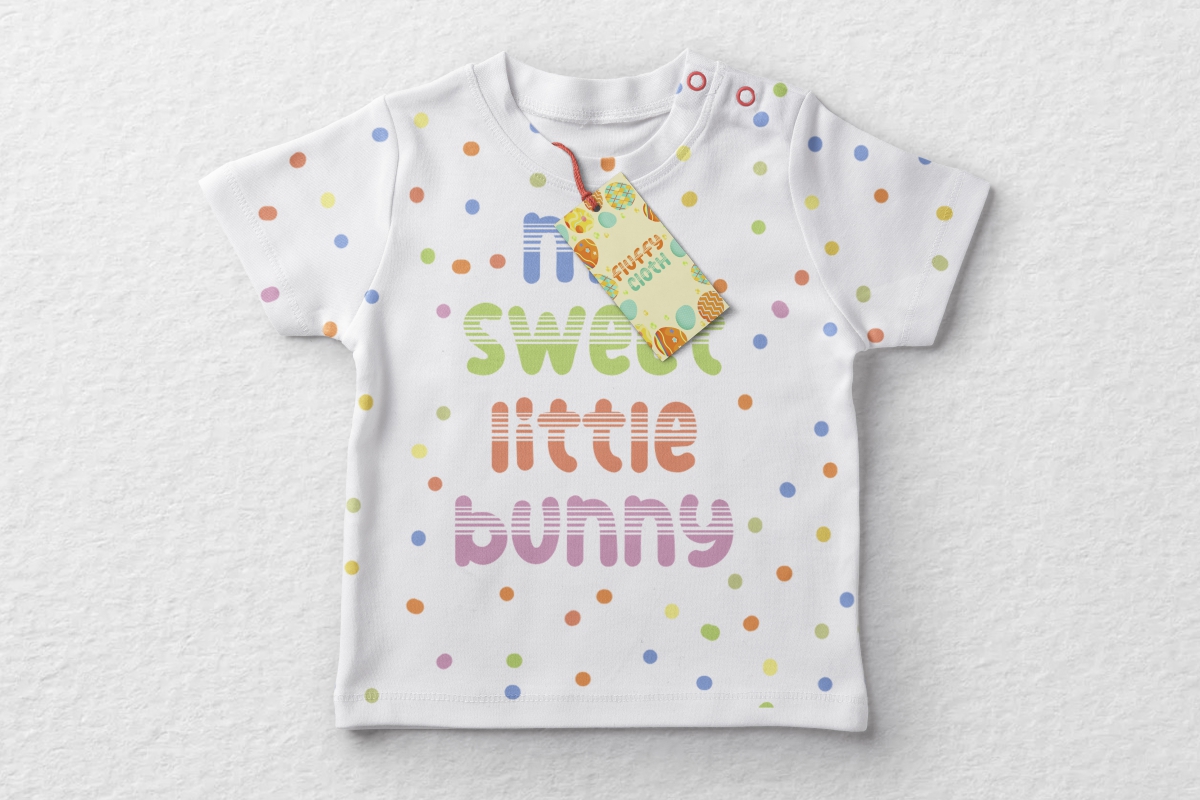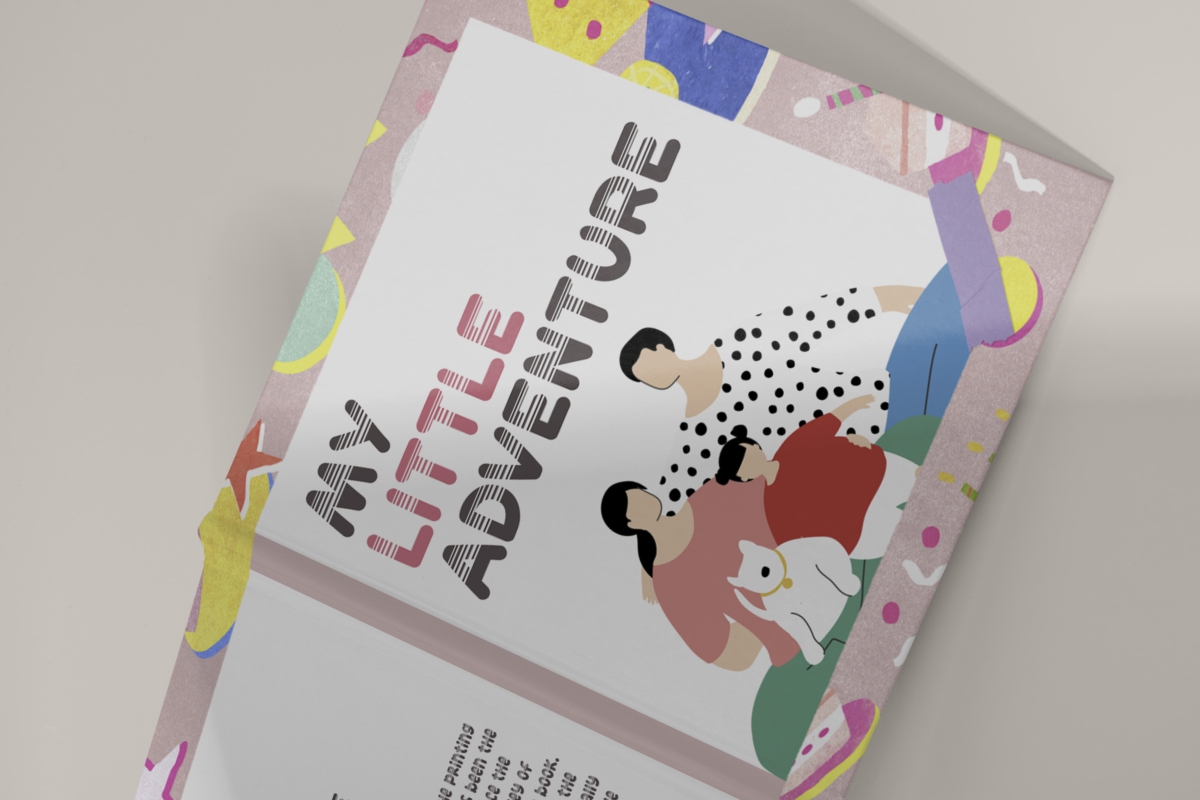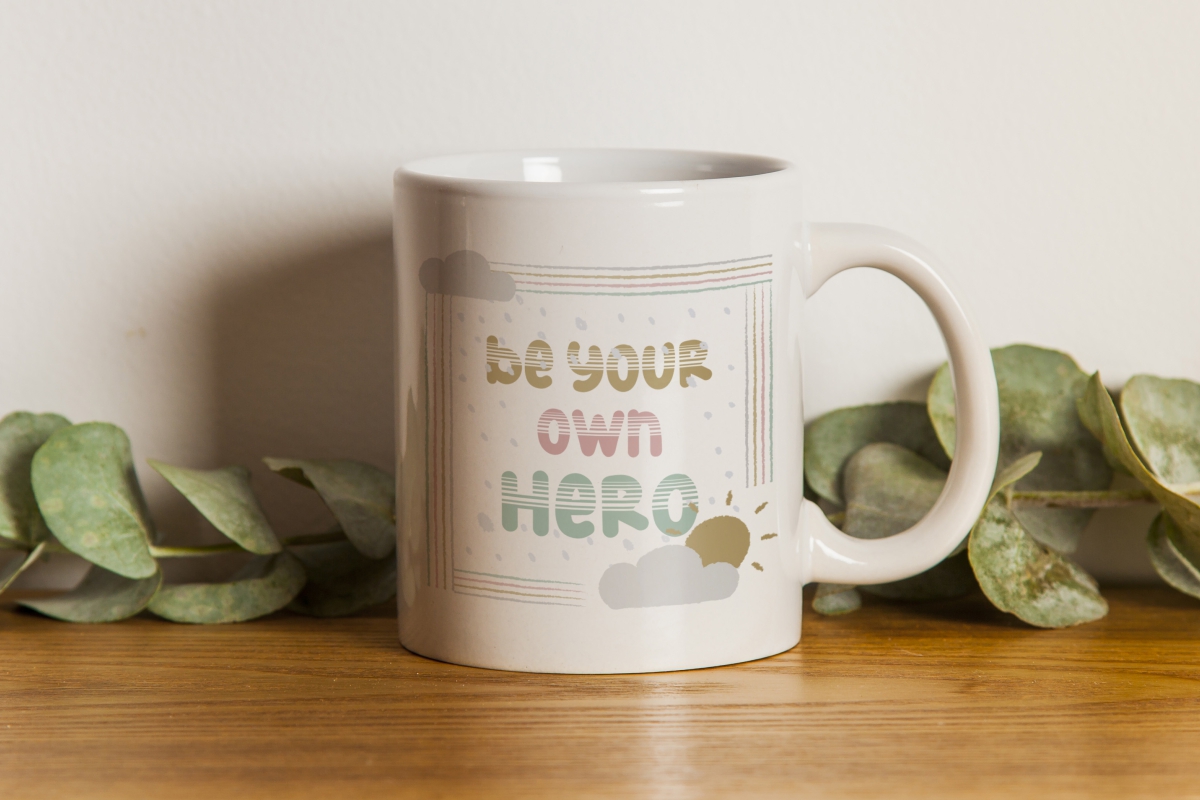
Stripe Across Font
Stripe Across Display Font
It’s a fun display font with comic and cartoon style. This font has the effect of multiple lines at the top of each letter, like a traffic lane system. Which would be perfect for any industry, such as baby stuff, bakery, café, fashion, homeware, party event, restaurant, school, snack brand, toys, writer, and more!